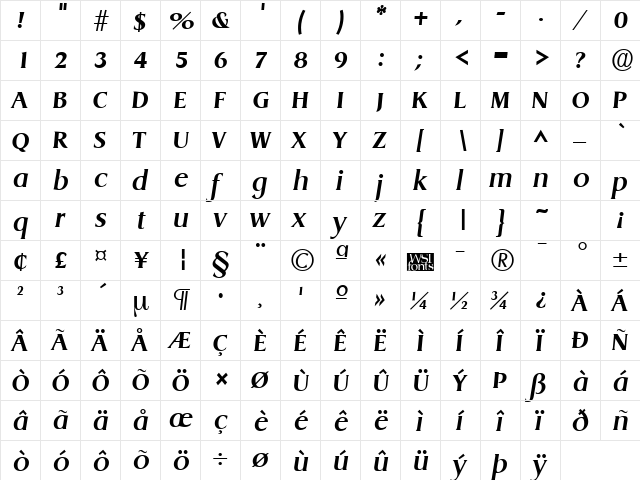
Griffon Bold Italic Font Preview
Design Context for Griffon Typeface
Griffon offers clean, dependable letterforms without strong stylistic allegiance, making it a practical choice for designers who need flexibility. Its italic angle brings a sense of urgency and motion to the letterforms. The heavy weight commands attention and anchors typographic hierarchies.
Pro Tip: Try Griffon for annotation and caption copy alongside an upright companion — the contrast in angle creates a dynamic but ordered typographic system.